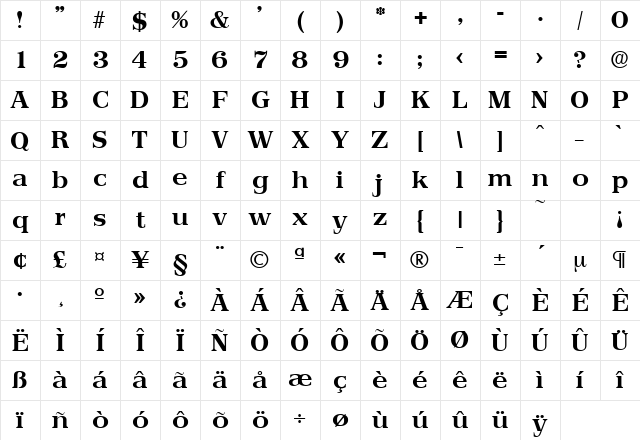
Complete Priamos-Serial DB Bold glyph index. Displaying only characters natively supported by Priamos-Serial DB Bold font.
Priamos-Serial DB is a composed and adaptable typeface that performs quietly and consistently across a wide range of design contexts. Its bold stroke weight gives it real presence on the page.